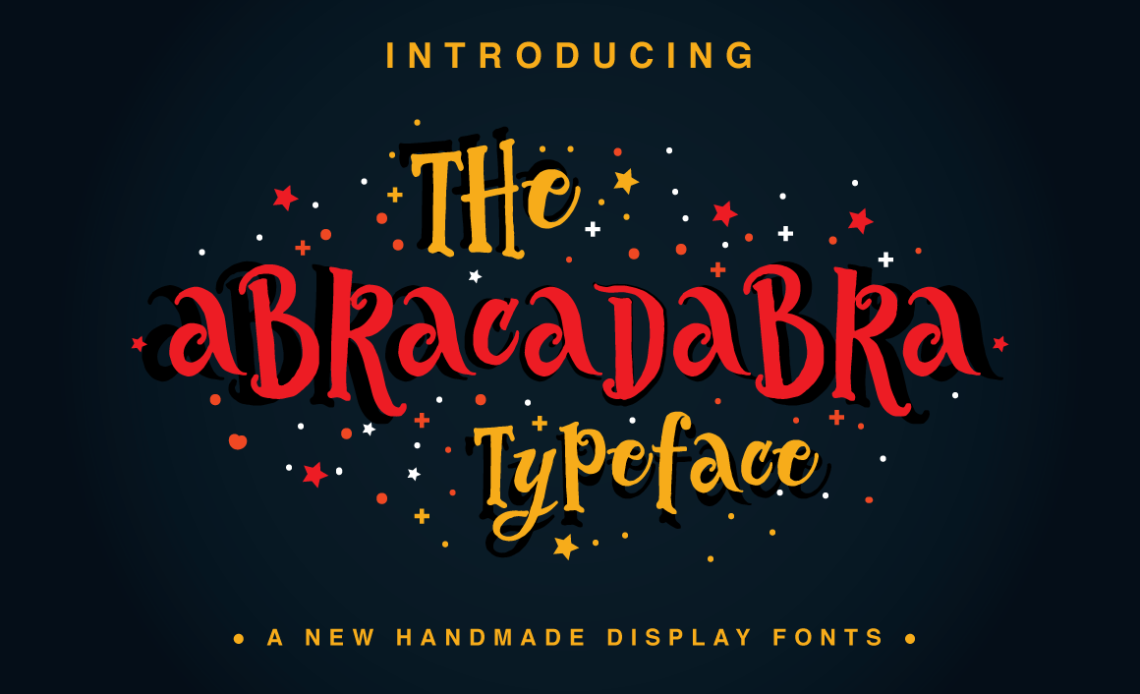
Prepare to be captivated by The Abracadabra Typeface Font, a groundbreaking display font that will cast a spell on your creative projects. This enchanting font, meticulously crafted by Fusion Labs Type Foundry, is a testament to the beauty and power of handmade artistry. With its playful and nostalgic charm, Abracadabra will transport you to a realm of retro and vintage aesthetics, where your designs will shine with an unparalleled allure.
Unleash your imagination and delve into a world of possibilities with Abracadabra. Its meticulously designed ornamental uppercase characters serve as magical building blocks, allowing you to conjure captivating designs that demand attention. Craft eye-catching posters that speak volumes, design greeting cards that warm hearts, and create t-shirt designs that turn heads wherever you go. Abracadabra's versatility knows no bounds, making it the perfect companion for a myriad of projects.
With Abracadabra, you'll embark on a creative journey where the ordinary transforms into the extraordinary. Prepare to be amazed as your designs come alive with a vibrant personality and an irresistibly charming touch. Let Abracadabra be your wand, waving it across your digital canvas to create masterpieces that resonate with audiences of all ages.
Abracadabra is more than just a font; it's an experience. It's a chance to tap into your inner child, to let your creativity run wild, and to produce designs that are as unique and captivating as you are. Embrace the magic of Abracadabra and watch as your creative dreams become a reality.